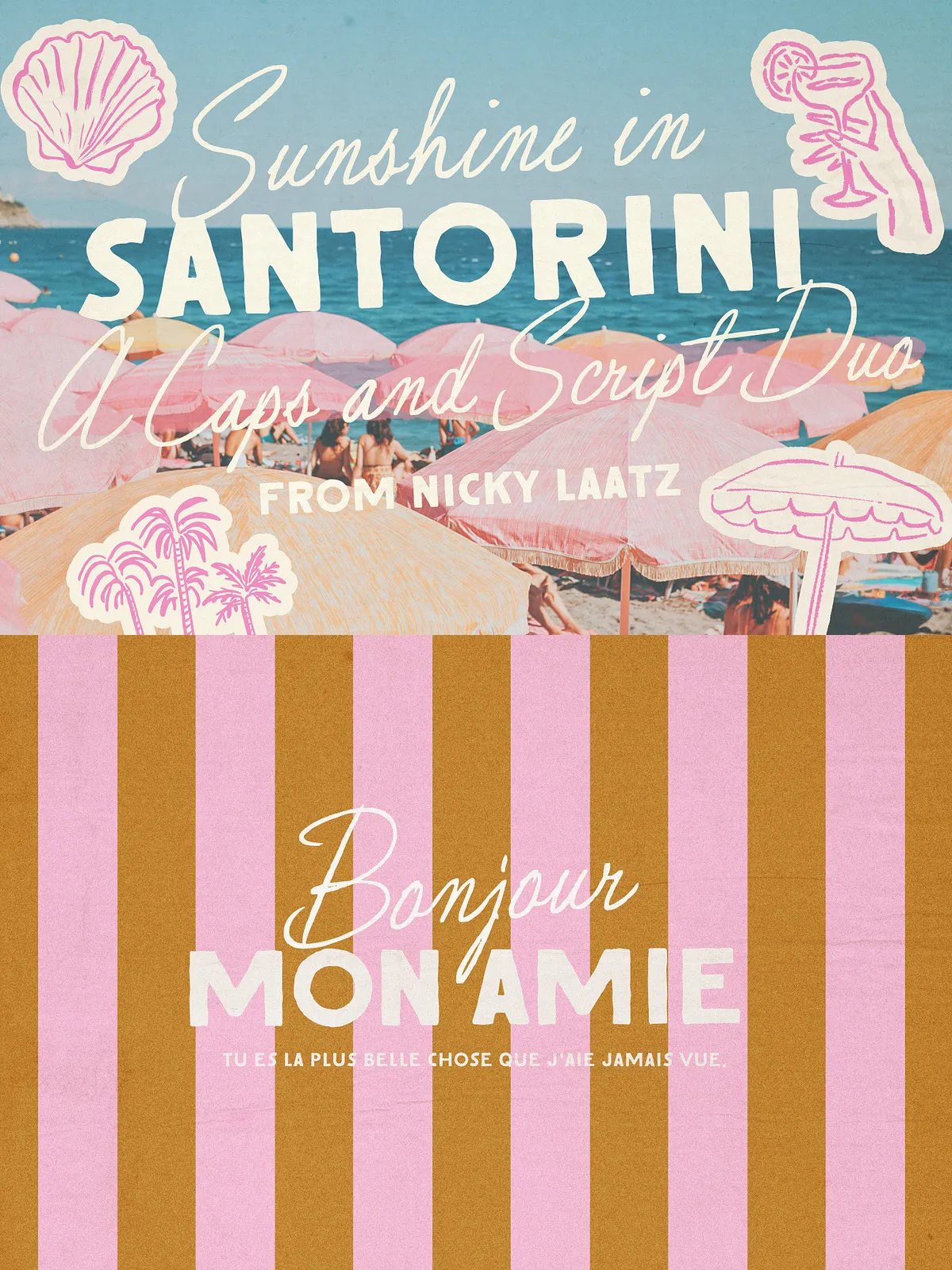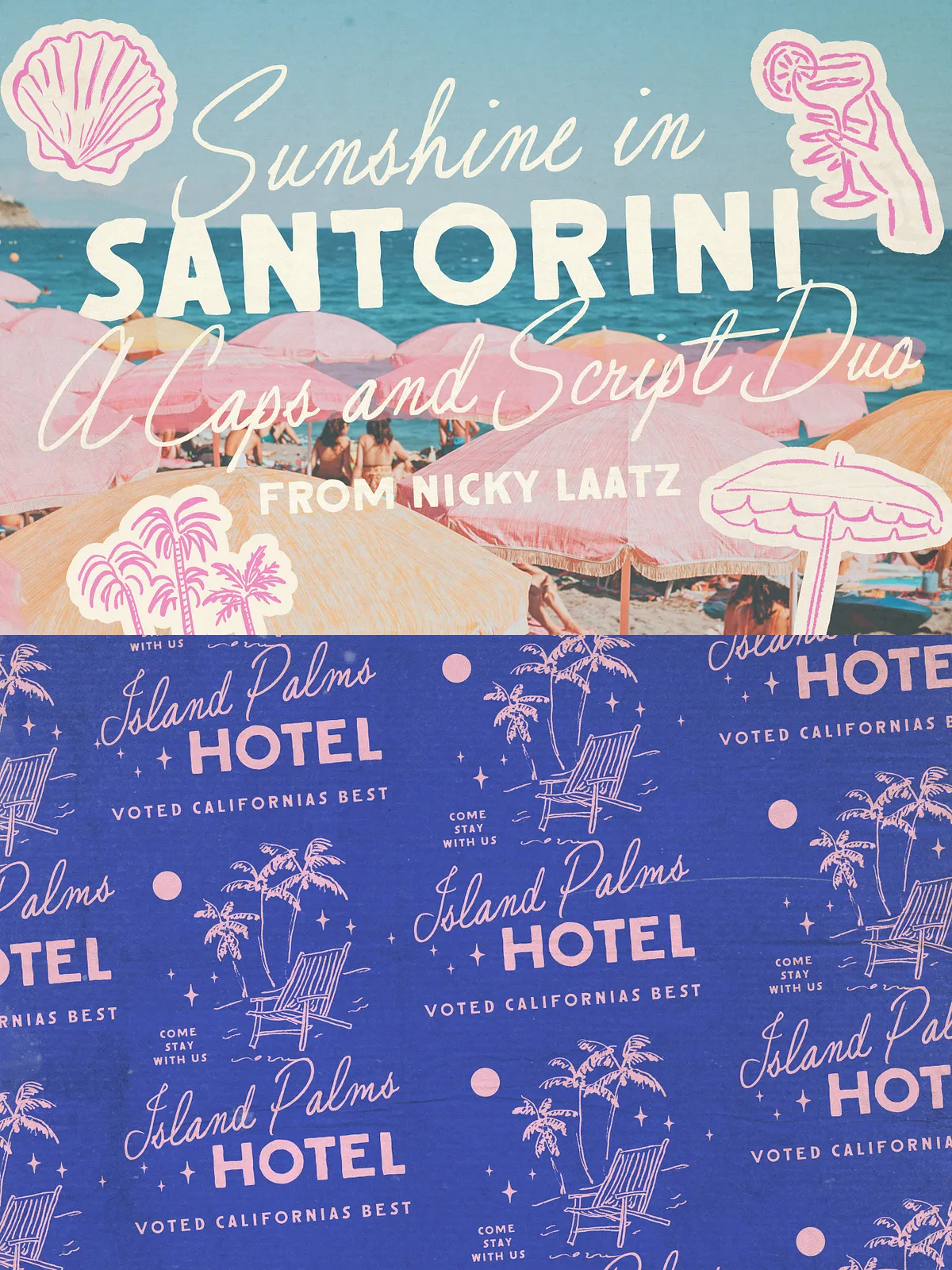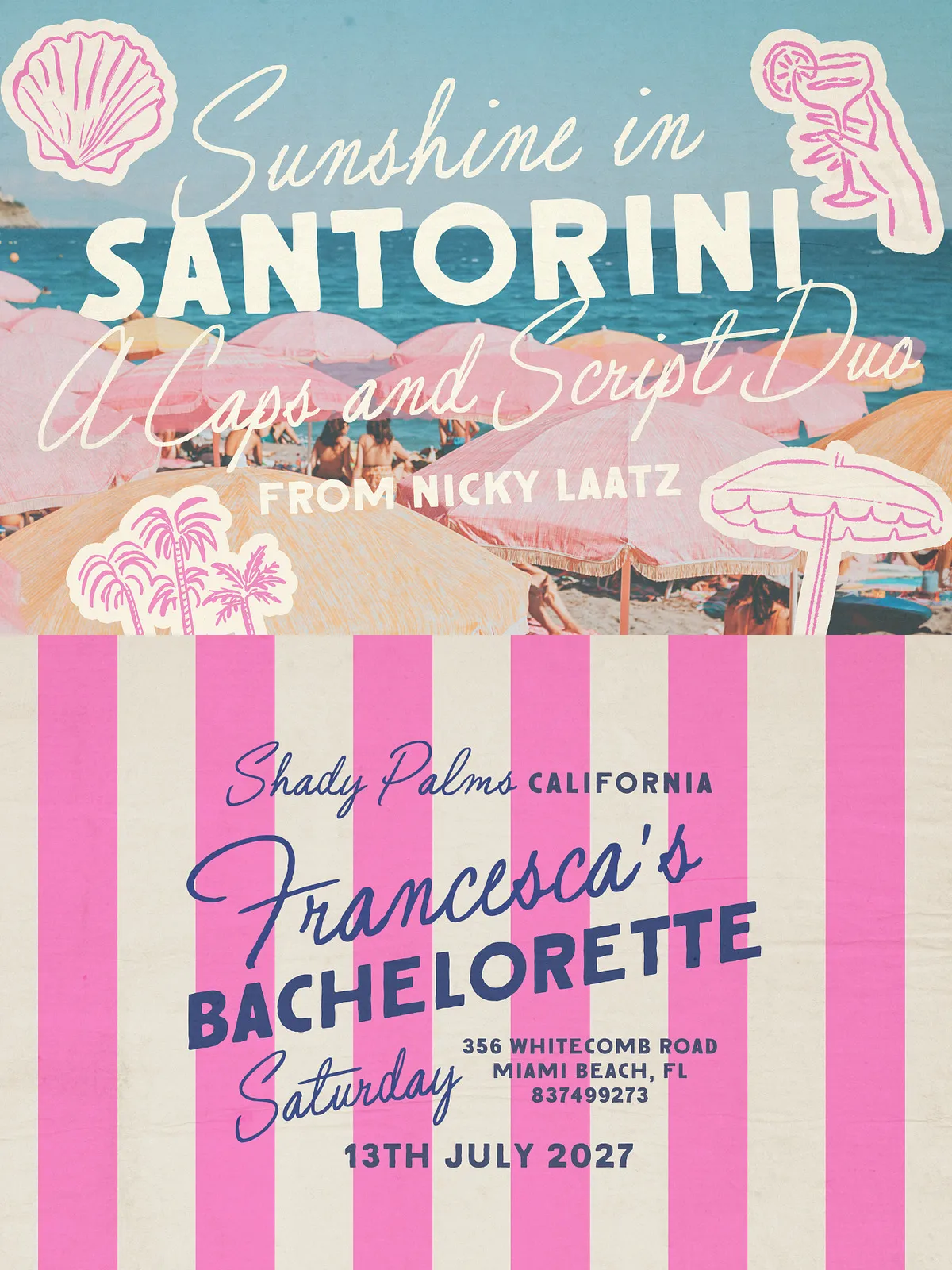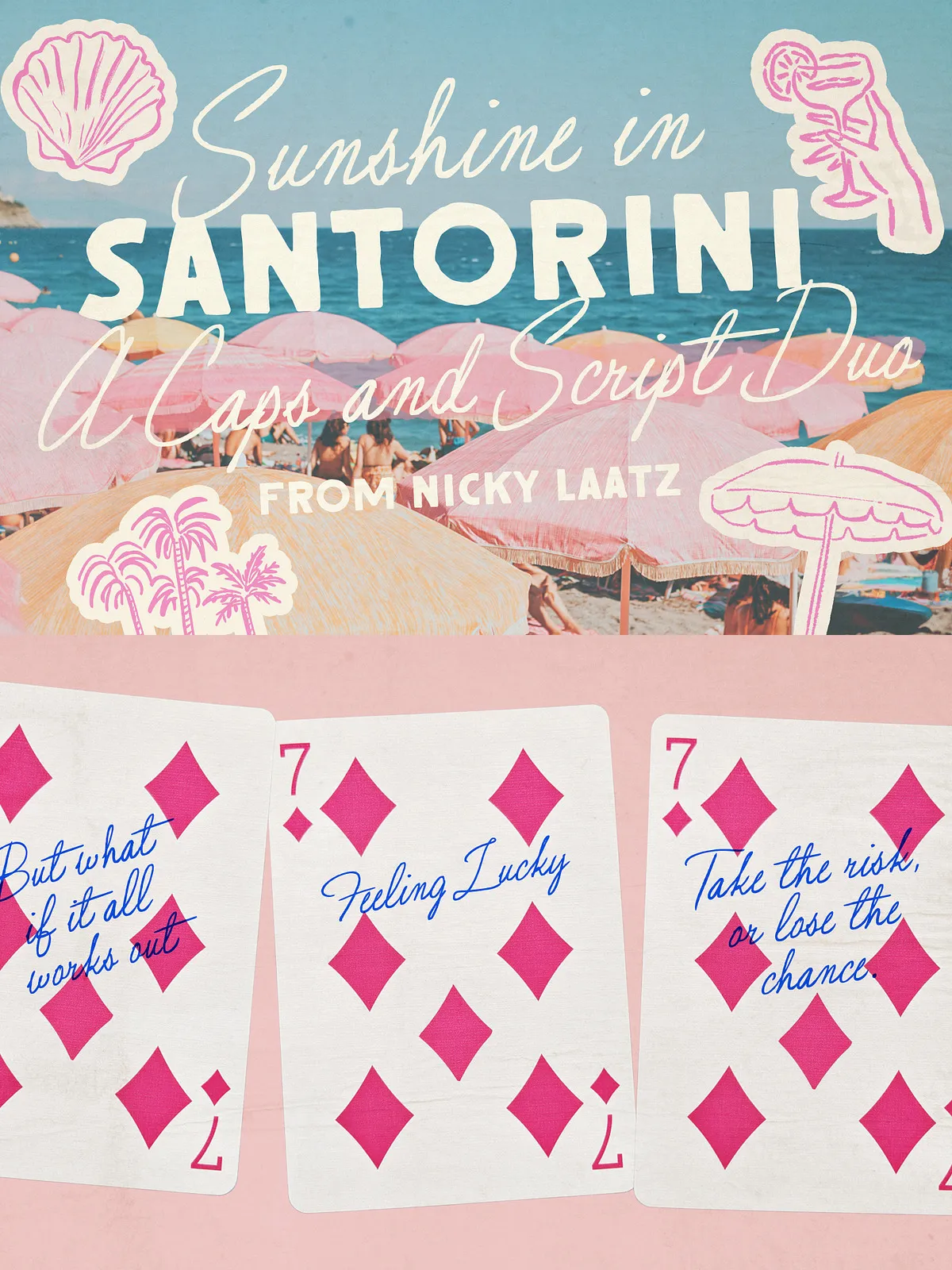
Santorini Sunshine brings warm, sunlit personality to your designs. This purposeful font duo pairs a naturally imperfect handwritten script — with a hint of glamorous 1950s nostalgia — with a rough-edged, inky all-caps sign-painted sans inspired by retro signage. The combination reads bold and suave, fresh and nostalgic, ready to transform logos, packaging, event stationery, and seasonal campaigns with instant character.
- Handwritten Script: Regular and Wider variants, each with two slant options
- All-caps Sign-Painted Sans: Standard weight and a slightly lighter weight
- Outlined versions for decorative display of each sans variant
Handwritten Script — Natural, Nostalgic, Glamorous
The script captures an imperfect, human hand with elegant 50s-inspired gestures. It reads warm and personal, delivering a nostalgic glamour that still feels modern. Use it for names, taglines, and accent text where personality and charm matter.
All-Caps Sign-Painted Sans — Inky, Rough, and Impactful
The sans provides strong display presence with rough edges and hand-painted texture. It excels at headlines, badges, and logos that need vintage signage energy. The lighter weight and outlined options expand creative possibilities for layered and textured layouts.
Flexible Pairing & Contrast
The duo balances expressive script shapes against confident all-caps geometry. That contrast produces strong typographic hierarchies and keeps long headlines legible while preserving a crafted aesthetic.
Usage & Best Practices
Pairing Recommendations
Use the handwritten script for short, expressive copy: names, callouts, and accent lines. Reserve the all-caps sans for headlines, badges, or primary display elements. For body text or long copy, pair the duo with a neutral serif or a clean geometric sans to preserve legibility.
Styling Tips
To maximize the retro-summer mood, apply warm color palettes (sun-bleached pastels, terracotta, nautical blues), add subtle grain or paper texture, and experiment with faded photo backgrounds. Use the outlined sans over bold fills or textured layers to reproduce authentic sign-painted effects. When preparing embroidery or small-scale print, test stroke widths and outline sizes to ensure clarity.